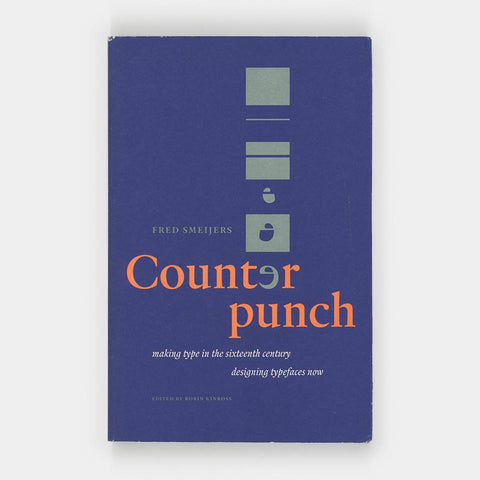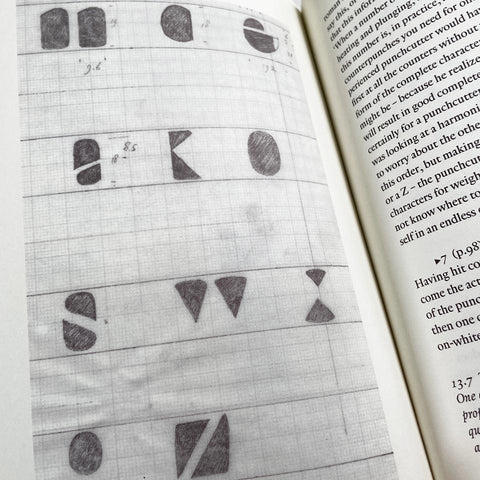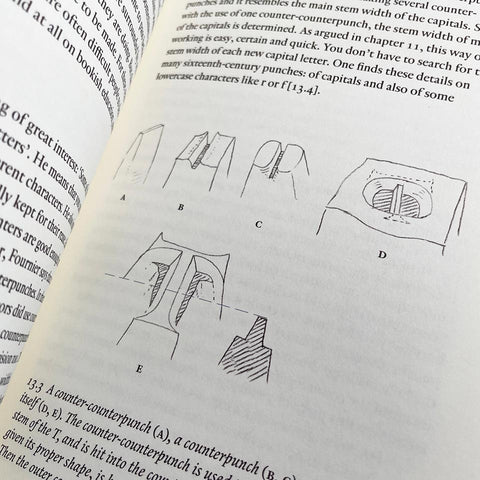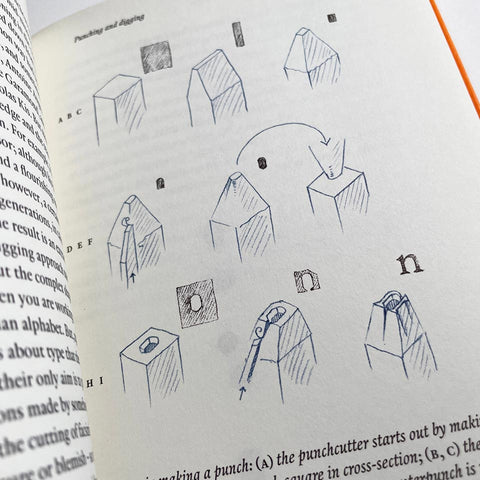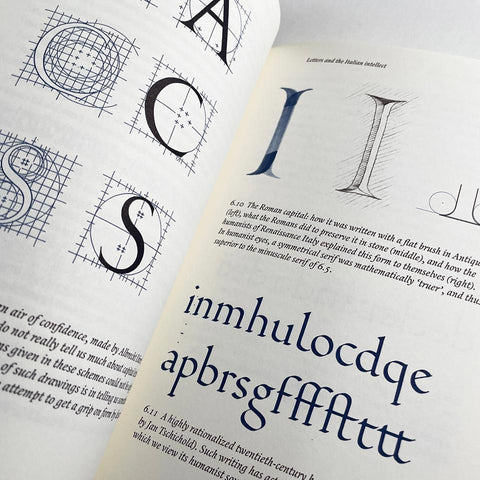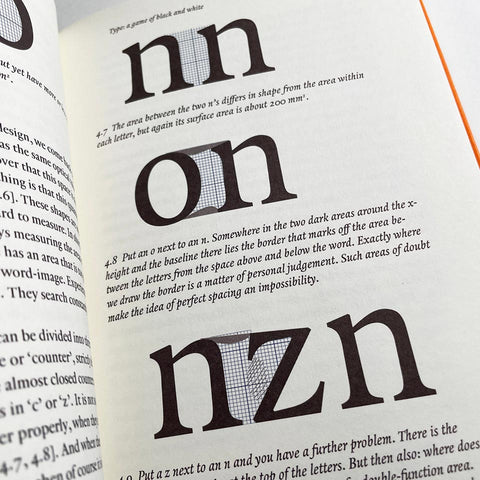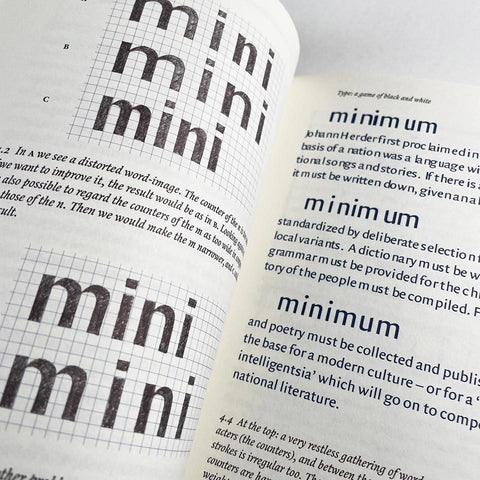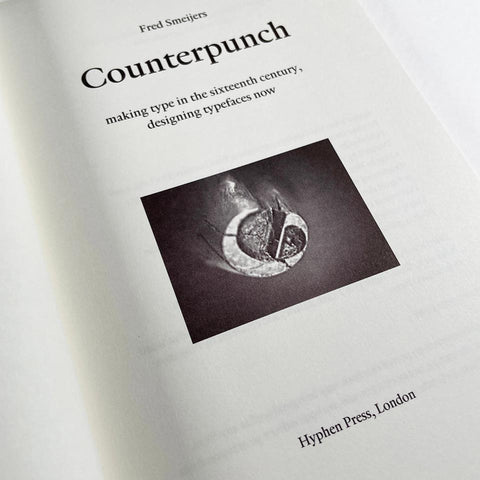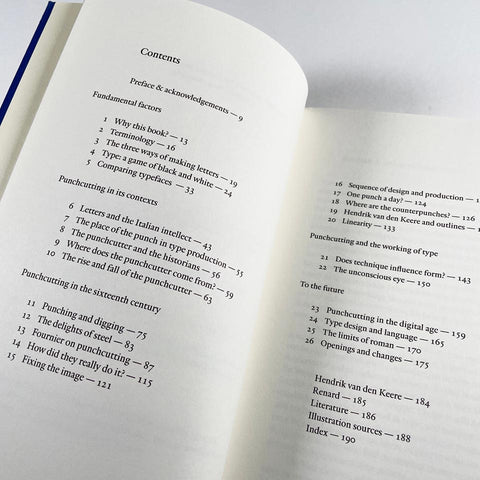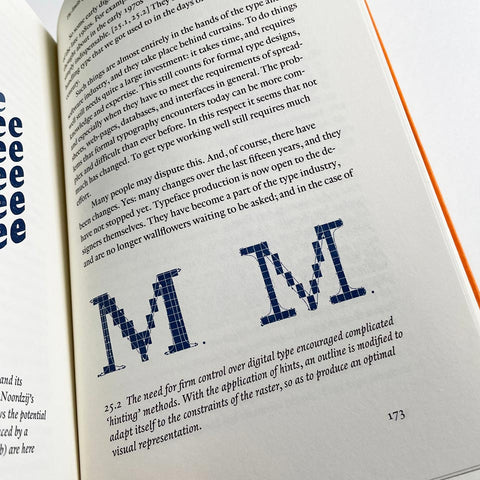
Counterpunch: Making Type in the 16th Century, Designing Typefaces Now
Typography is still dominated by letterforms from the first hundred years of European printing. What were the processes and attitudes that lie behind these forms? Fred Smeijers is a type designer who learnt to design and cut punches: the key instruments with which metal type is made. This book is a work of practical history, with much contemporary relevance.
Counterpunch is packed with ideas. It is both an investigation into the technics of making metal type by hand, and a consideration of present questions in type design. The discussion takes in the fundamentals of designing and making letters, so that the book can be read as a guide to type and font construction in any medium. Lively, pointed drawings and photographs complement an equally fresh text.
- Author: Fred Smeijers
- Publisher: London: Hyphen Press, 1996